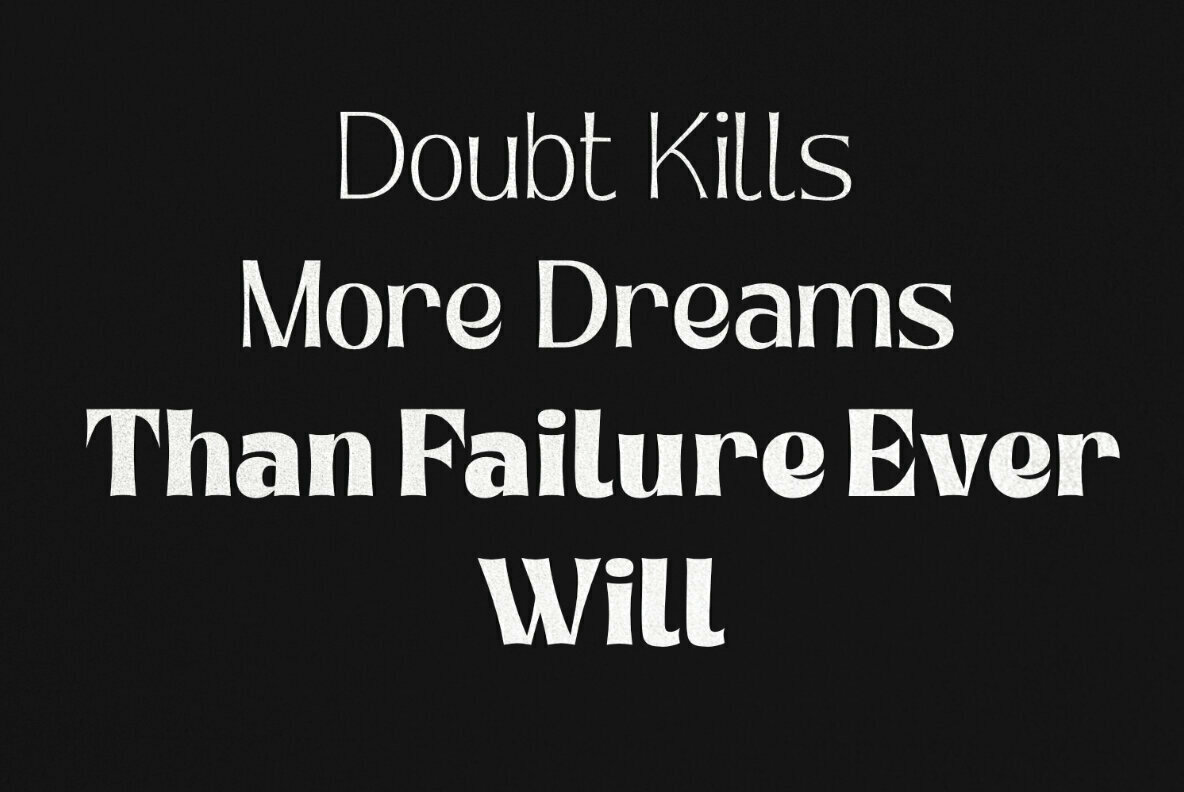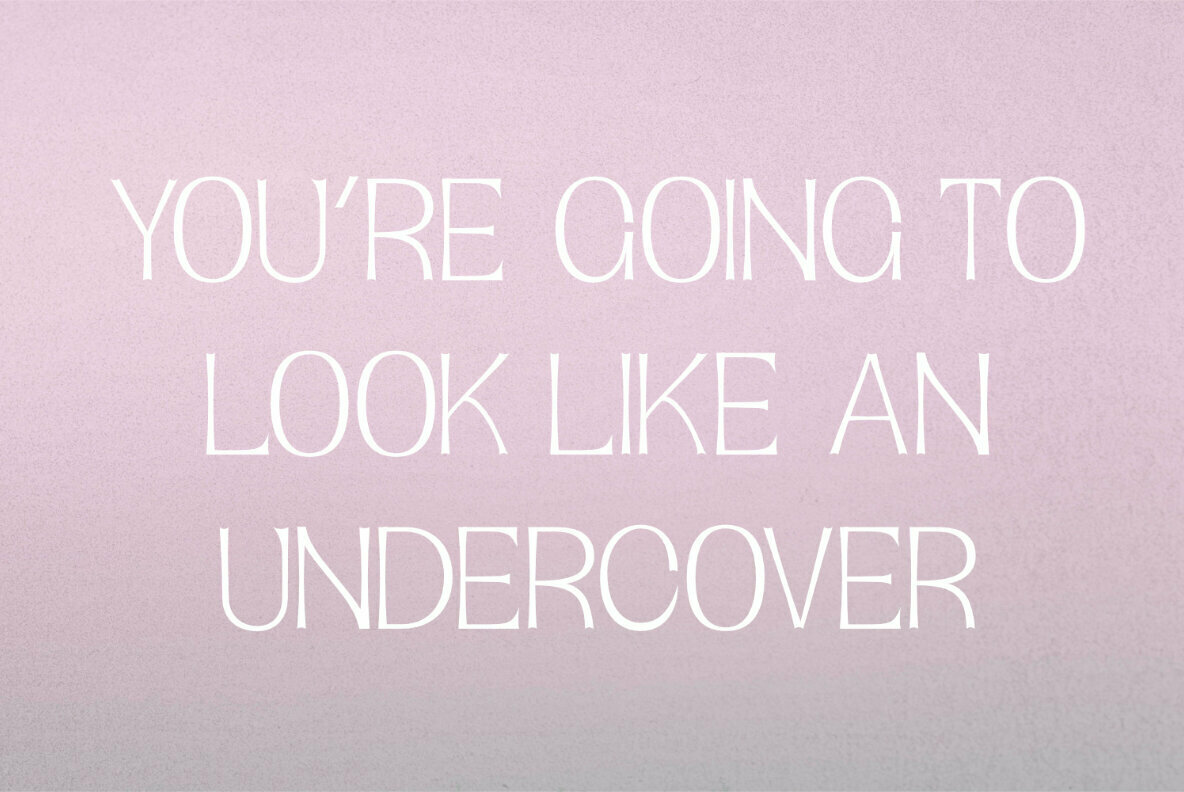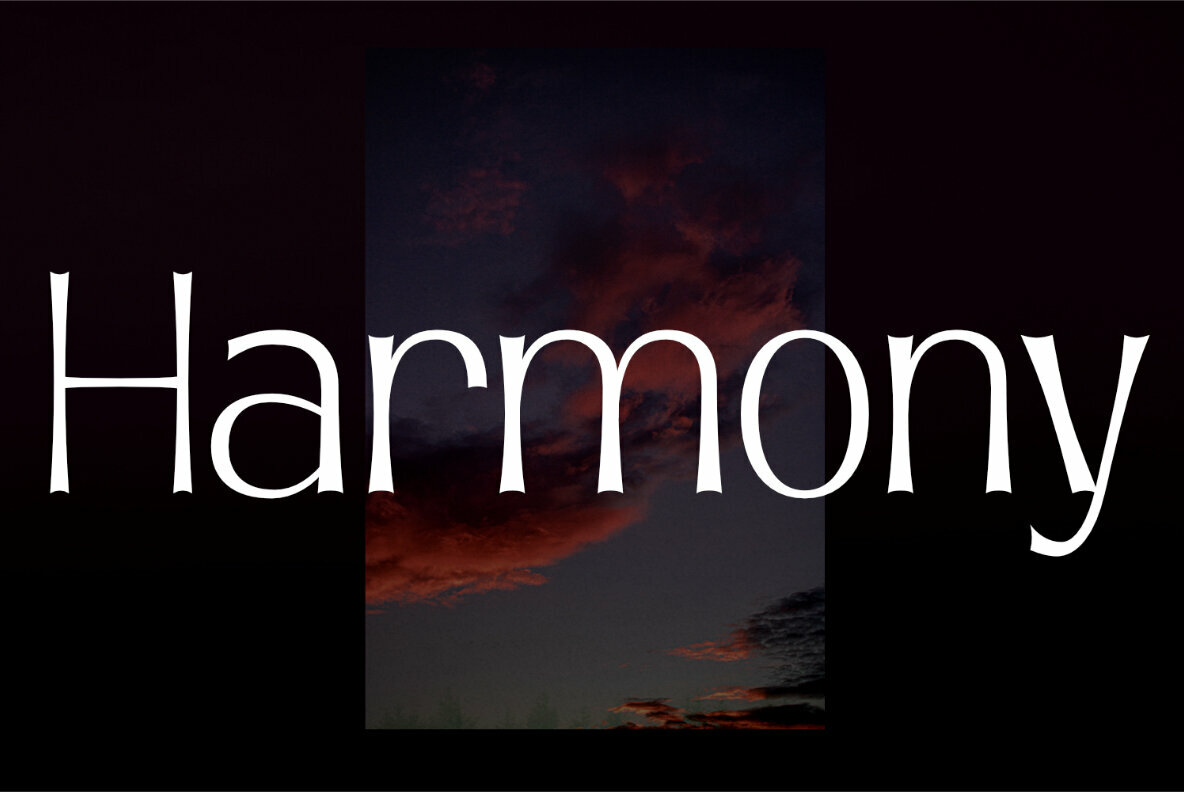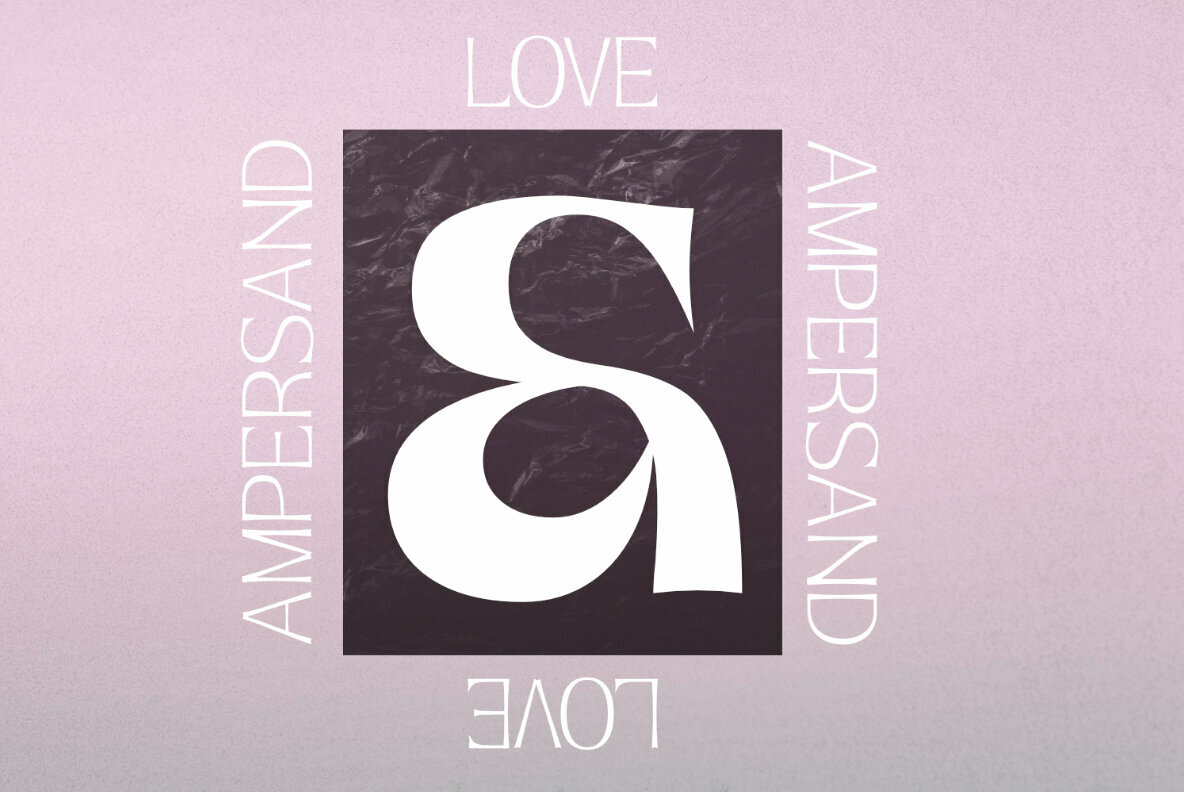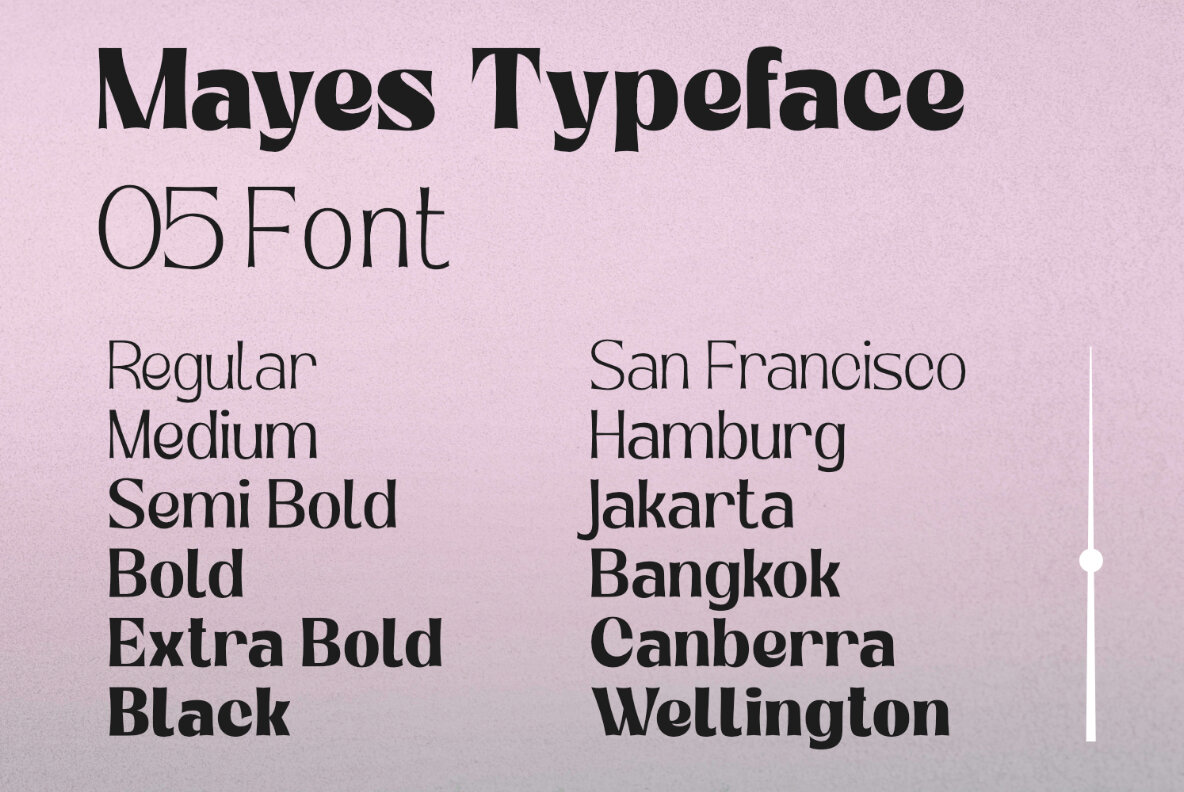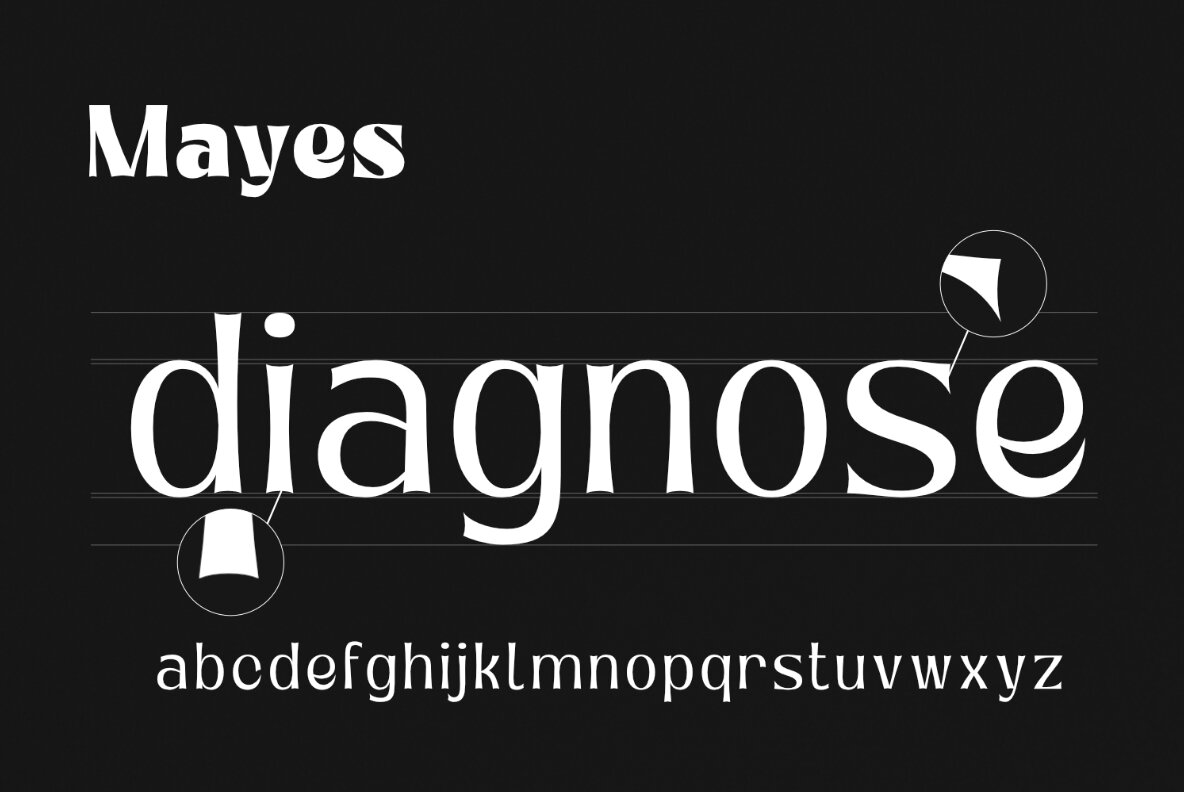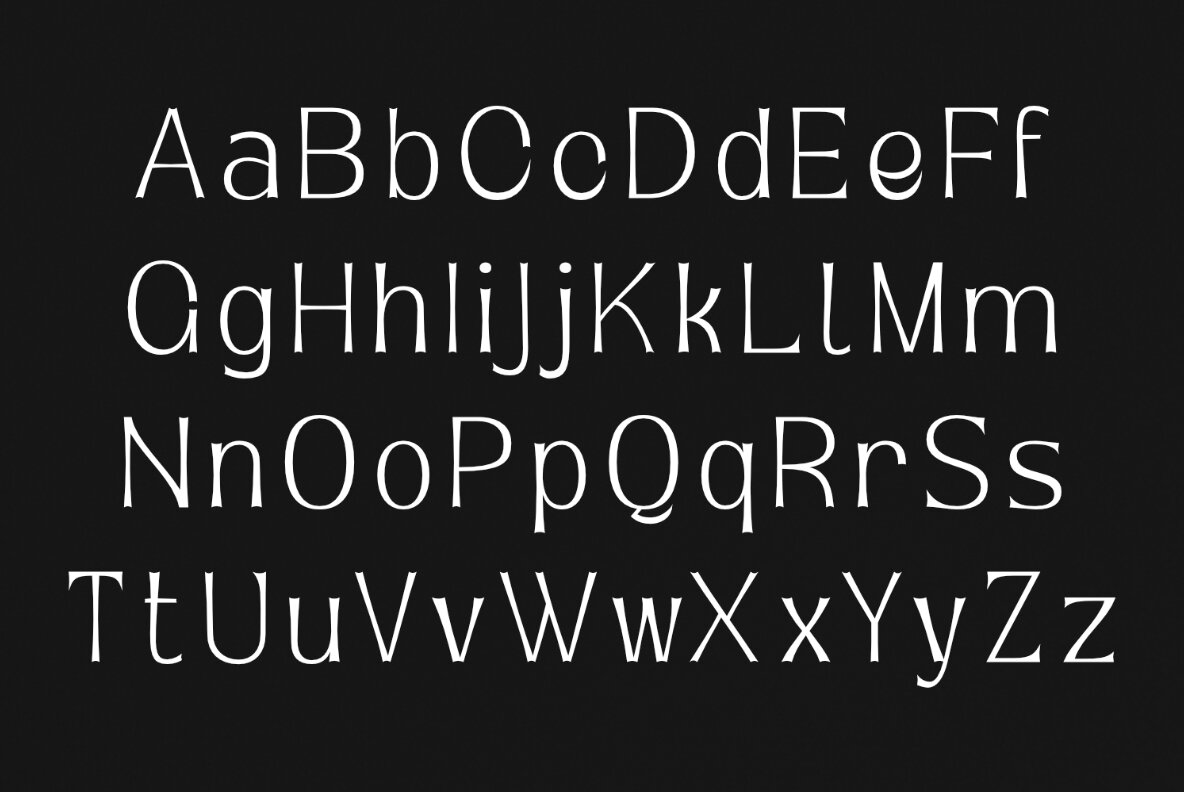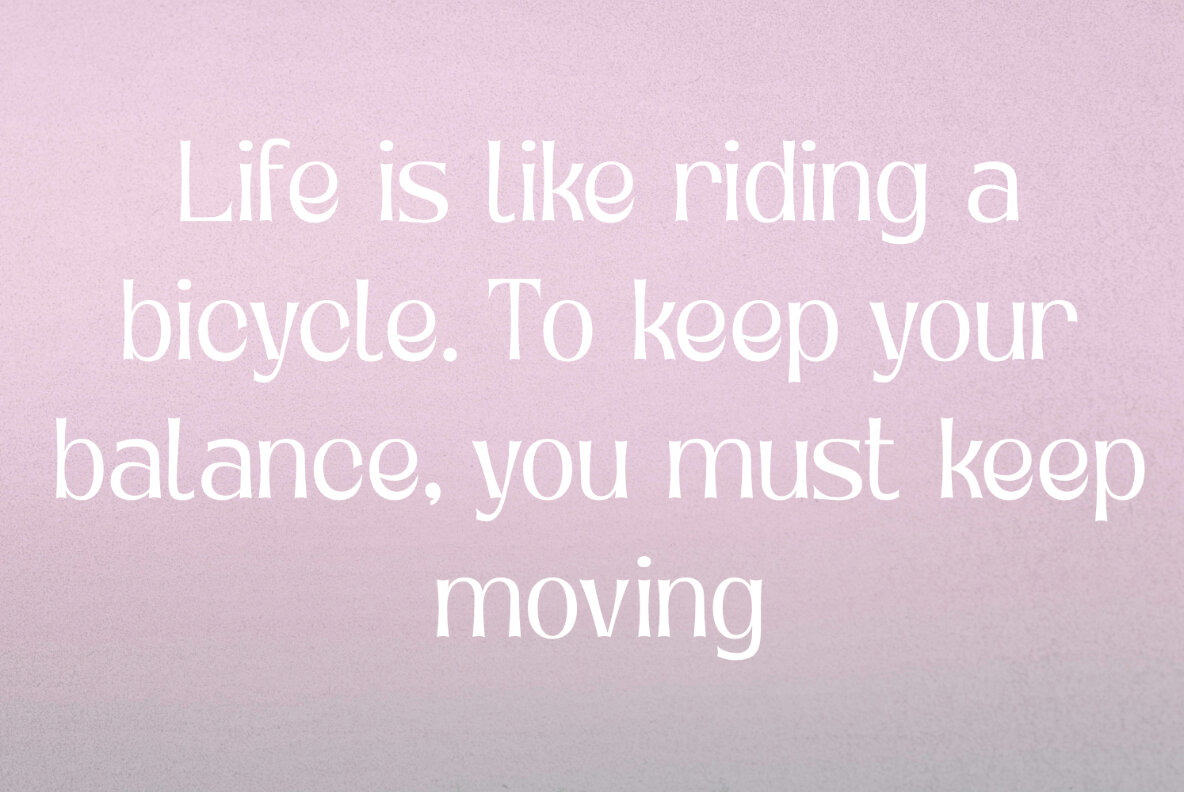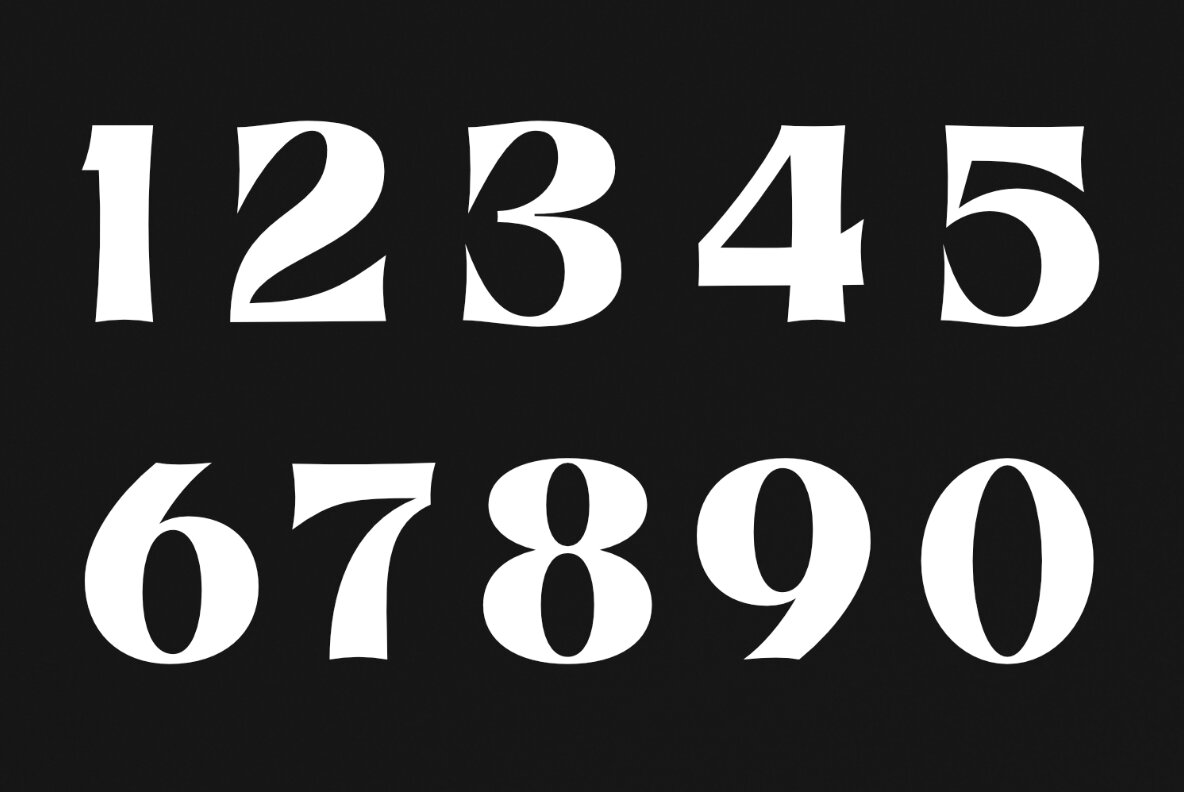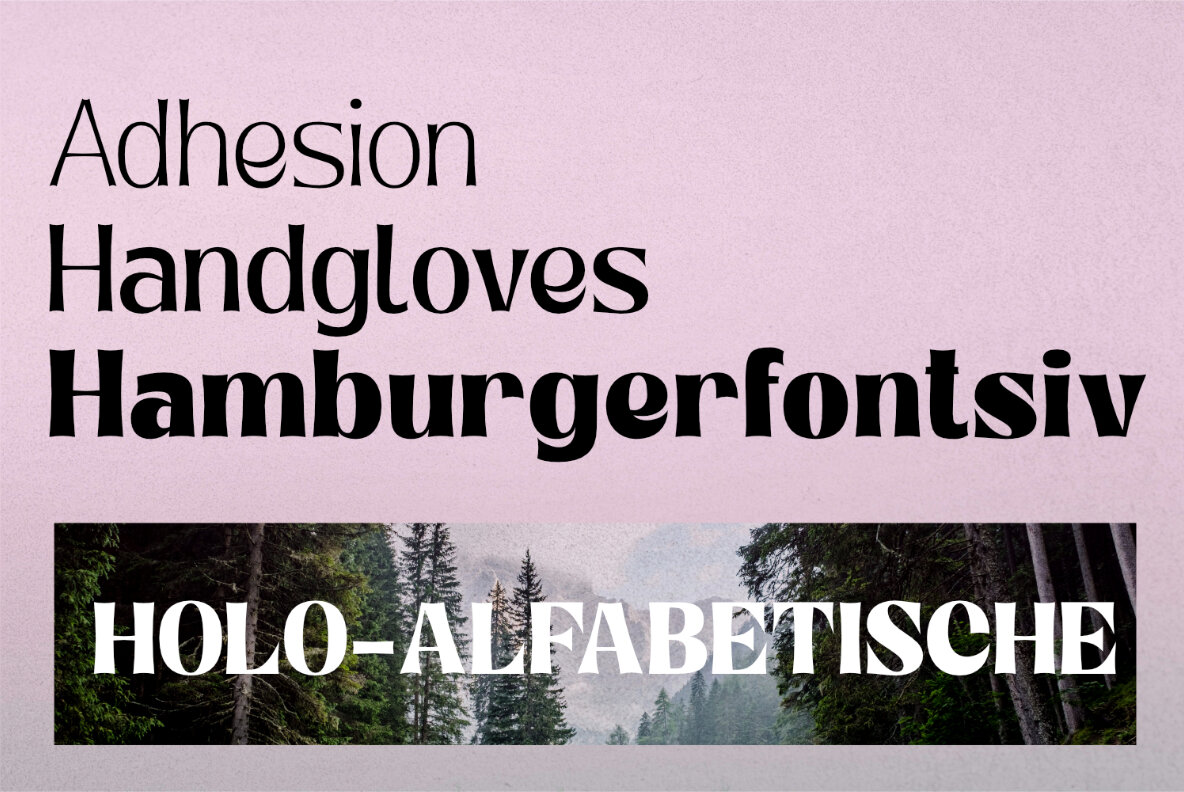
Mayes Font
Mayes Typeface. Multipurpose display font with unique characters, ranging in size from Regular to Black, making you free to design with Mayes Fonts.
It has over 319 meticulously crafted glyphs spread though seven gorgeous weights from Regular to Black. Inspired by the Vintage Display Typeface with strong characters in each character design.